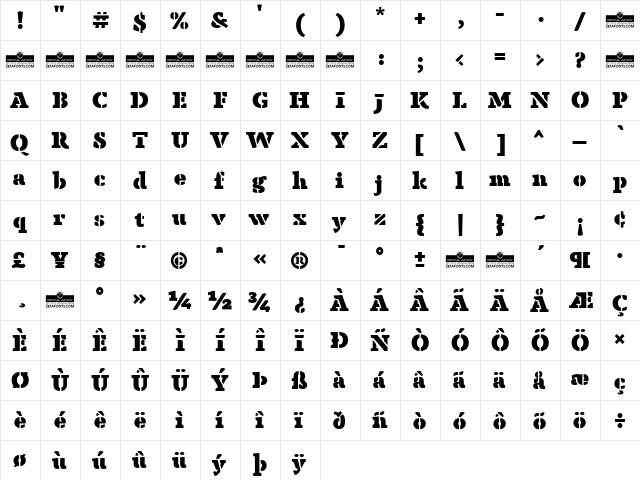
Anaphora Stencil Fat
| Foundry | Studio Kmzero |
| Designer | Francesco Canovaro |
Design Context for Anaphora Stencil Typeface
Anaphora Stencil borrows the utilitarian aesthetic of stencil lettering, with its characteristic cutaways and no-frills construction lending an industrial edge.
Ideal for industrial branding, streetwear, military-adjacent aesthetics, and urban signage projects.
Pro Tip: Pair Anaphora Stencil with raw, utilitarian design elements — exposed concrete textures, flat colour, and minimal ornamentation suit it well.